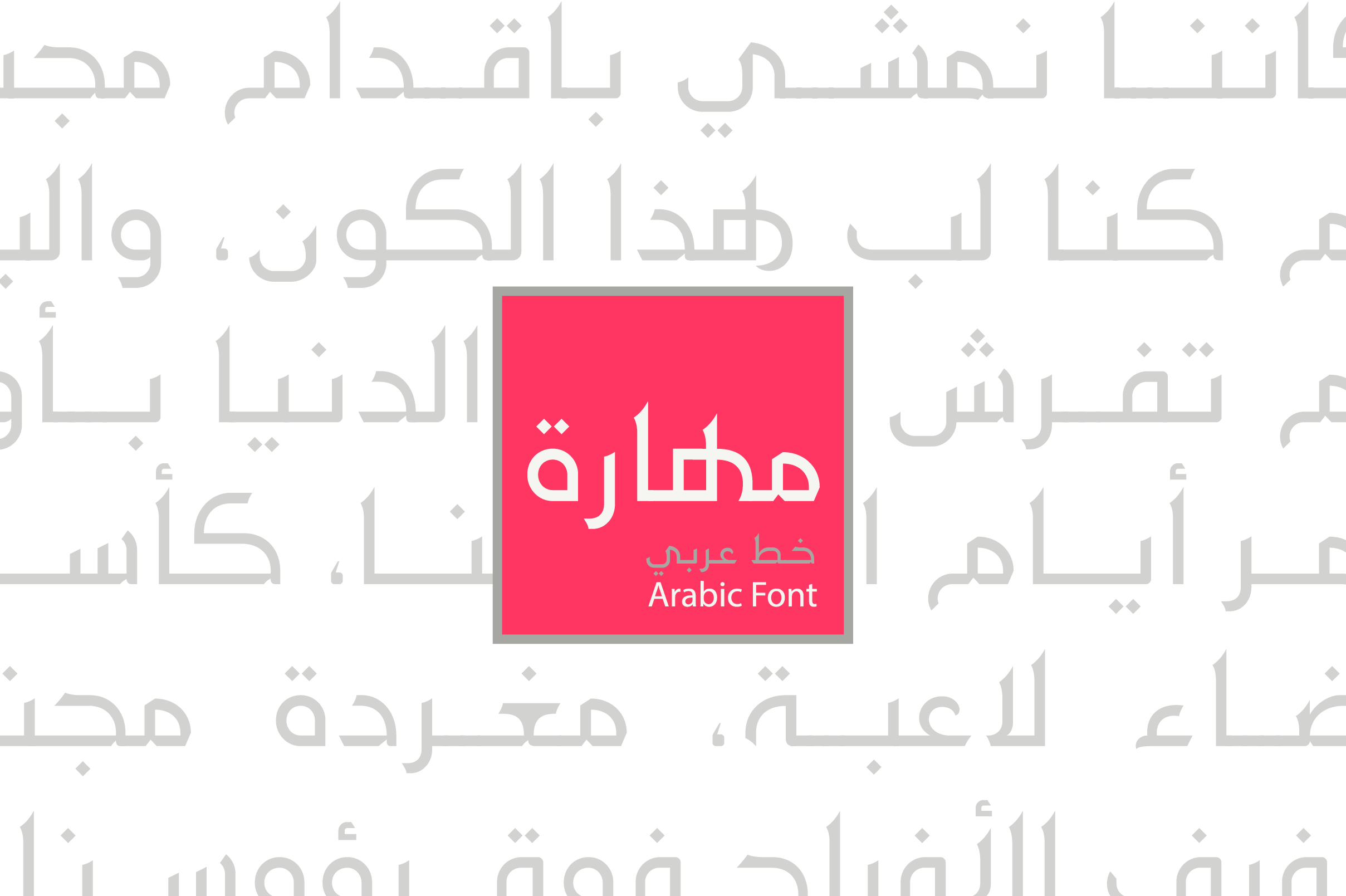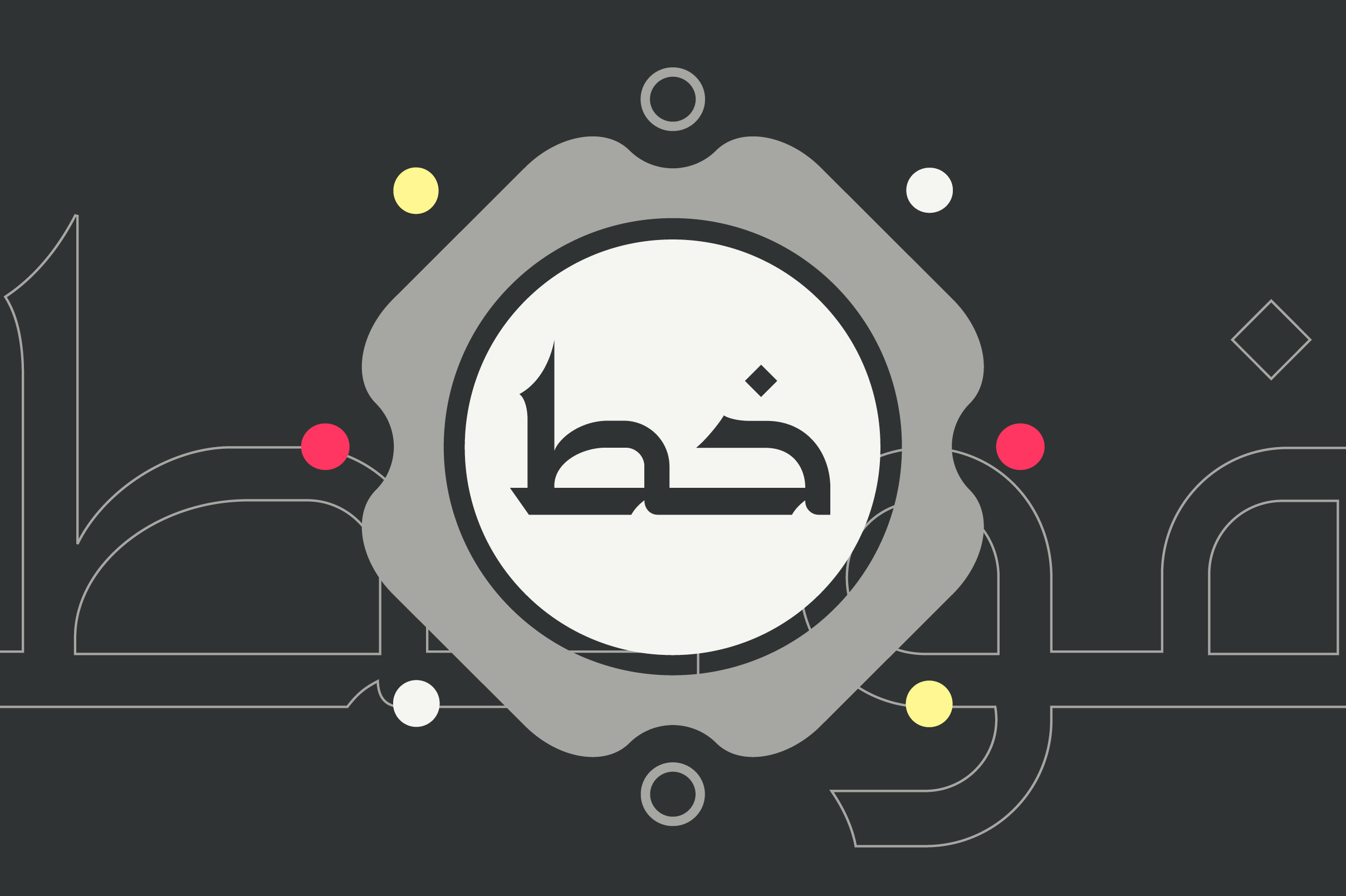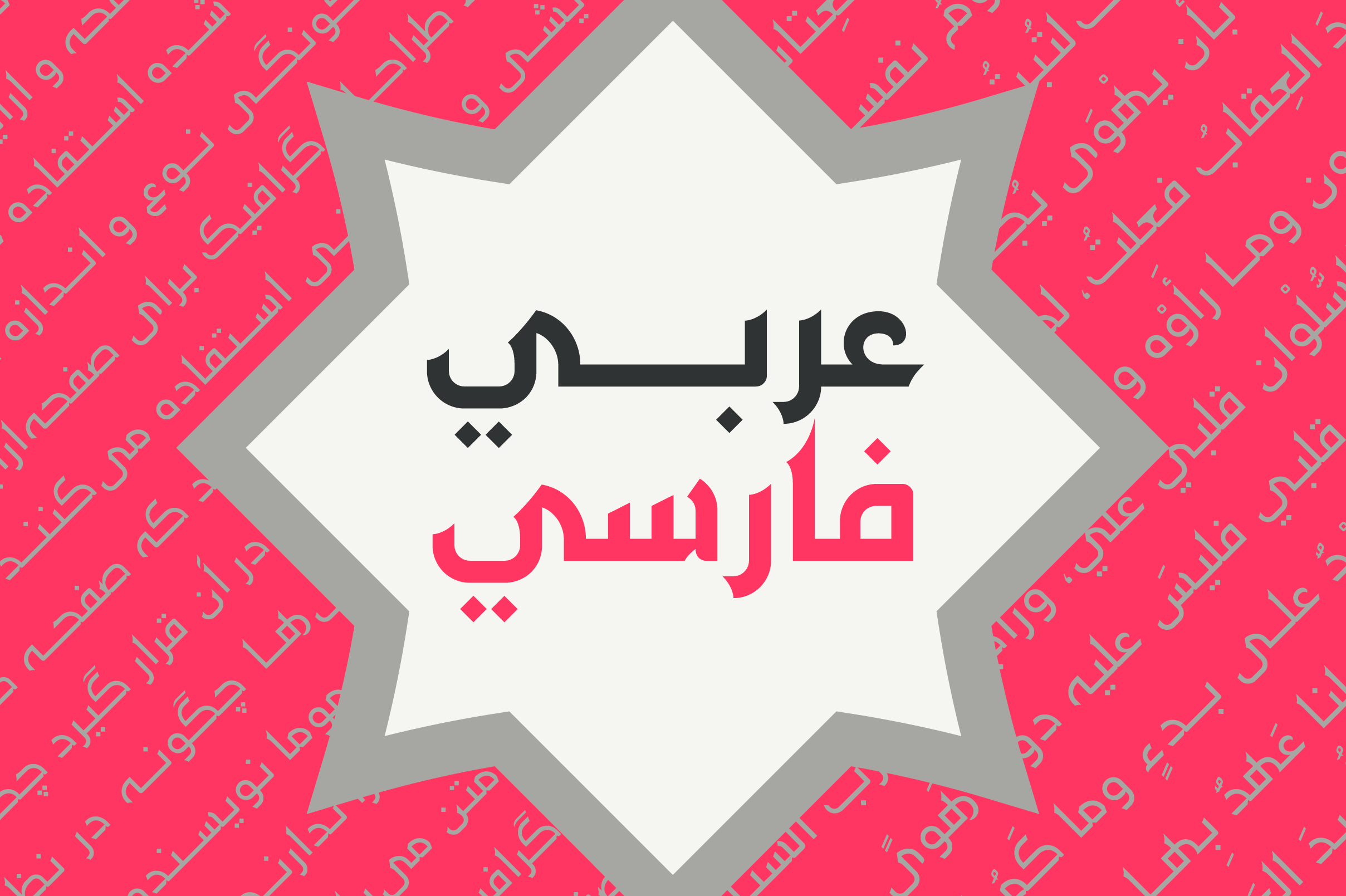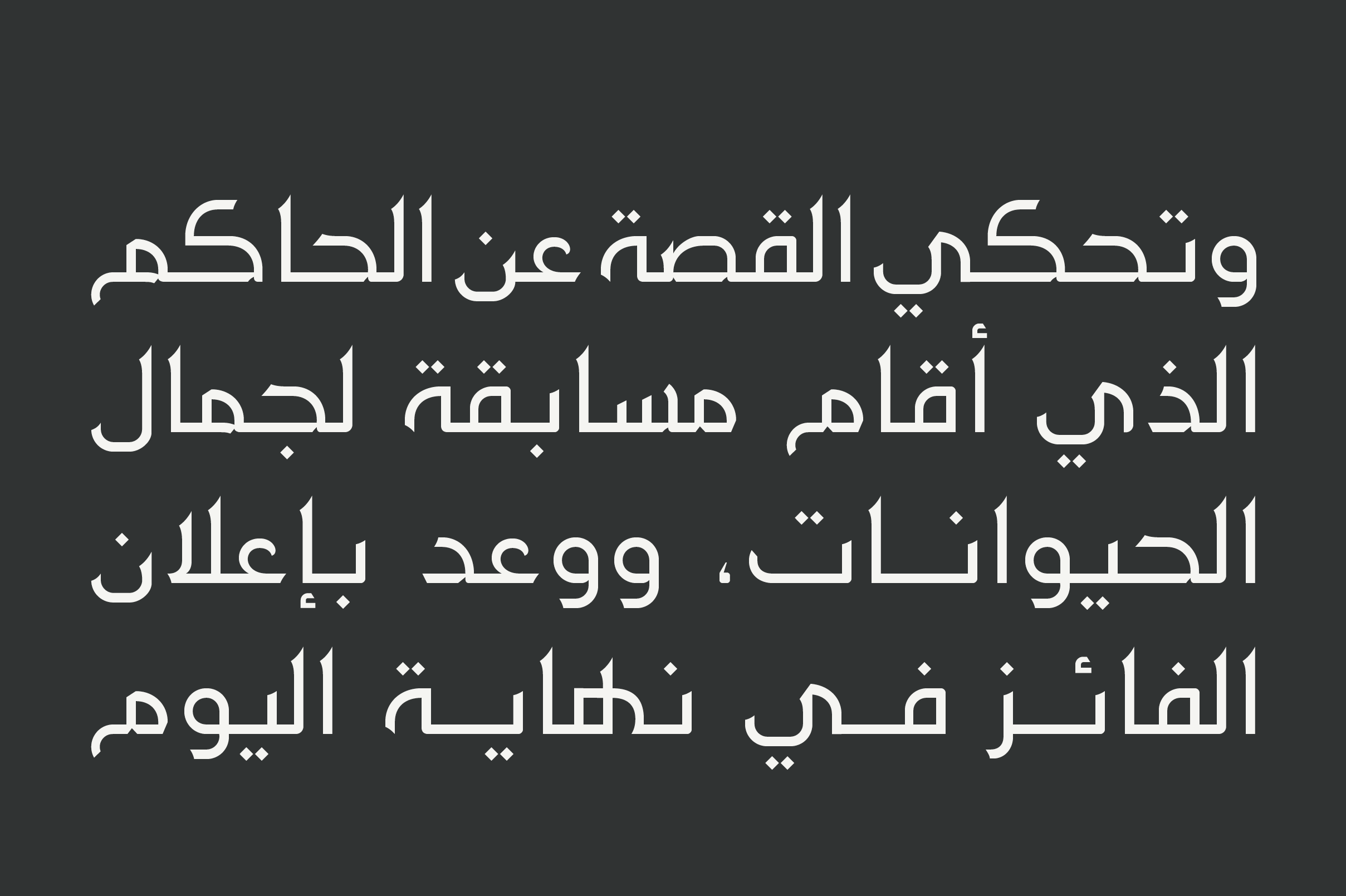
Maharah – Arabic Font
About the Maharah – Arabic Font
Presenting Maharah – Arabic Font, a unique and stylish typeface that will make your work stand out. Maharah is an Arabic typeface that combines authenticity with elegance and modernity. The word Maharah is the Arabic for “skill.” The font suits both web design and print and it comes in two weights; regular and bold.
Maharah’s elegant yet modern feel makes it ideal for branding projects, especially those related to luxury goods, sophisticated services, or cultural institutions. It also works well in headlines, short text blocks on posters, and even select packaging applications where readability at larger sizes is prioritized. However, its delicate details aren’t suited to body text or UI elements requiring high legibility at small sizes. Avoid using it for long paragraphs or dense text.
Pairing Maharah effectively depends on the desired effect. For a classic, balanced look, consider pairing it with a clean sans-serif like Open Sans for body copy. To create a more modern and striking contrast, a geometric sans-serif such as Roboto would be a strong choice. A subtle script font could add a touch of luxury in supporting roles.
The overall personality of Maharah is sophisticated and refined, conveying both skill and grace. Its subtle curves and refined details project an air of understated elegance, making it a versatile choice for projects requiring a balance of tradition and contemporary design sensibilities.
Maharah – Arabic Font Usage Examples